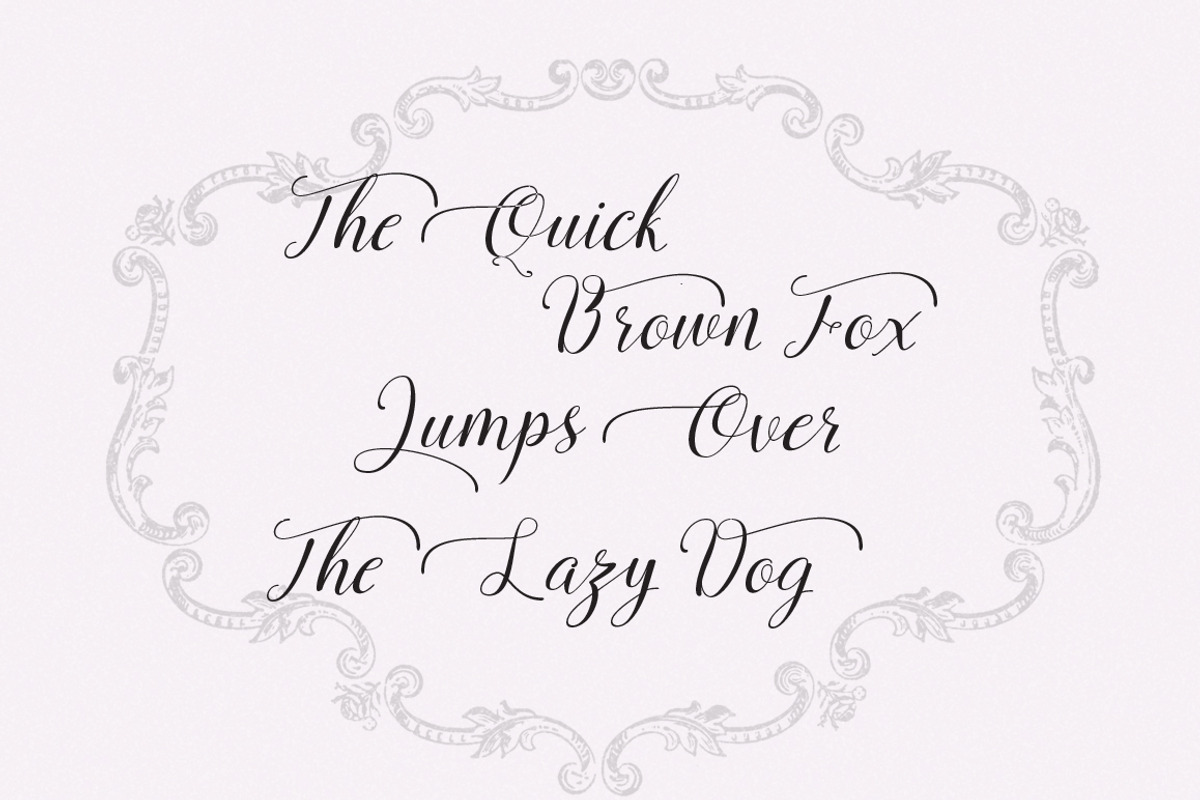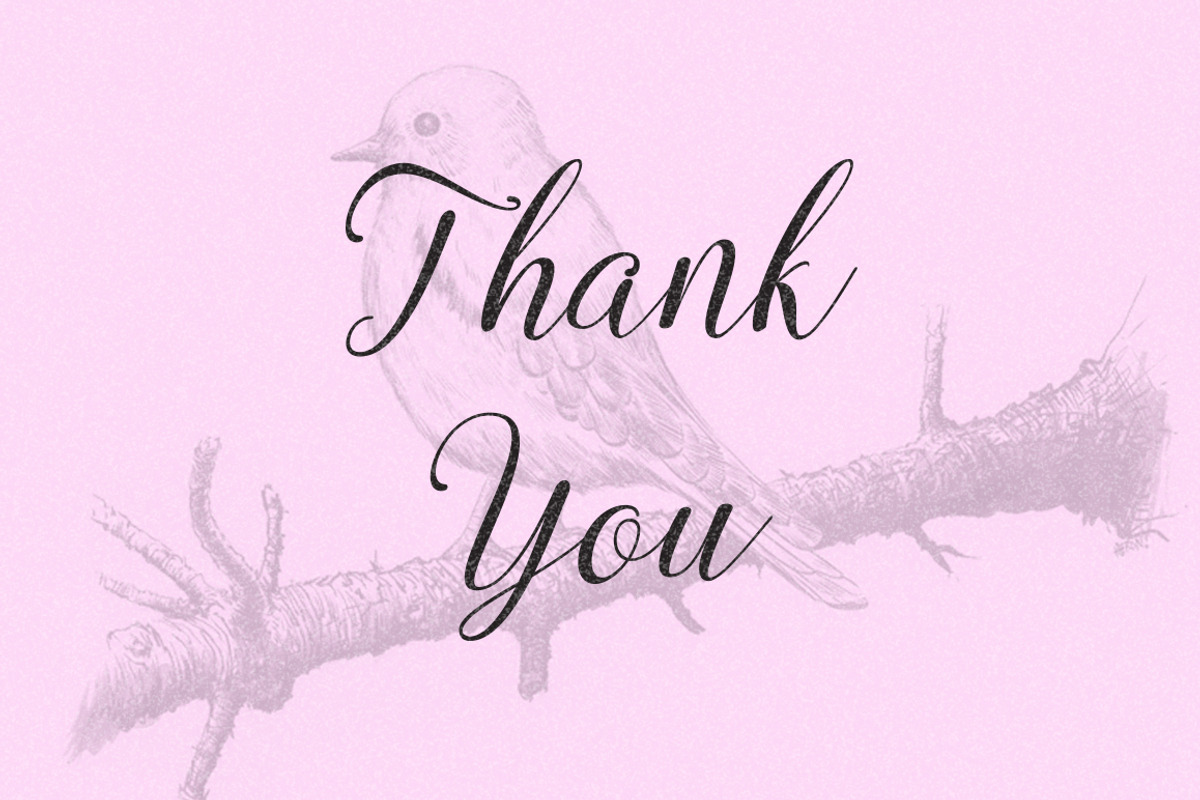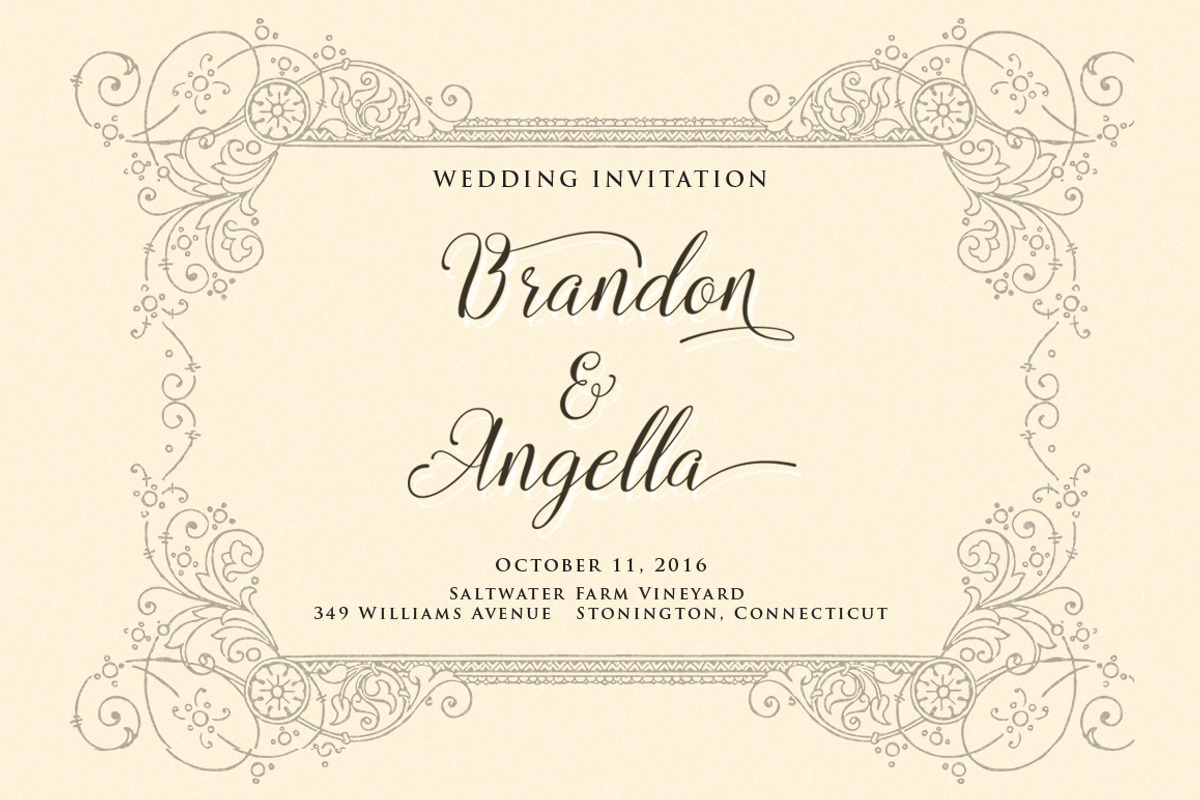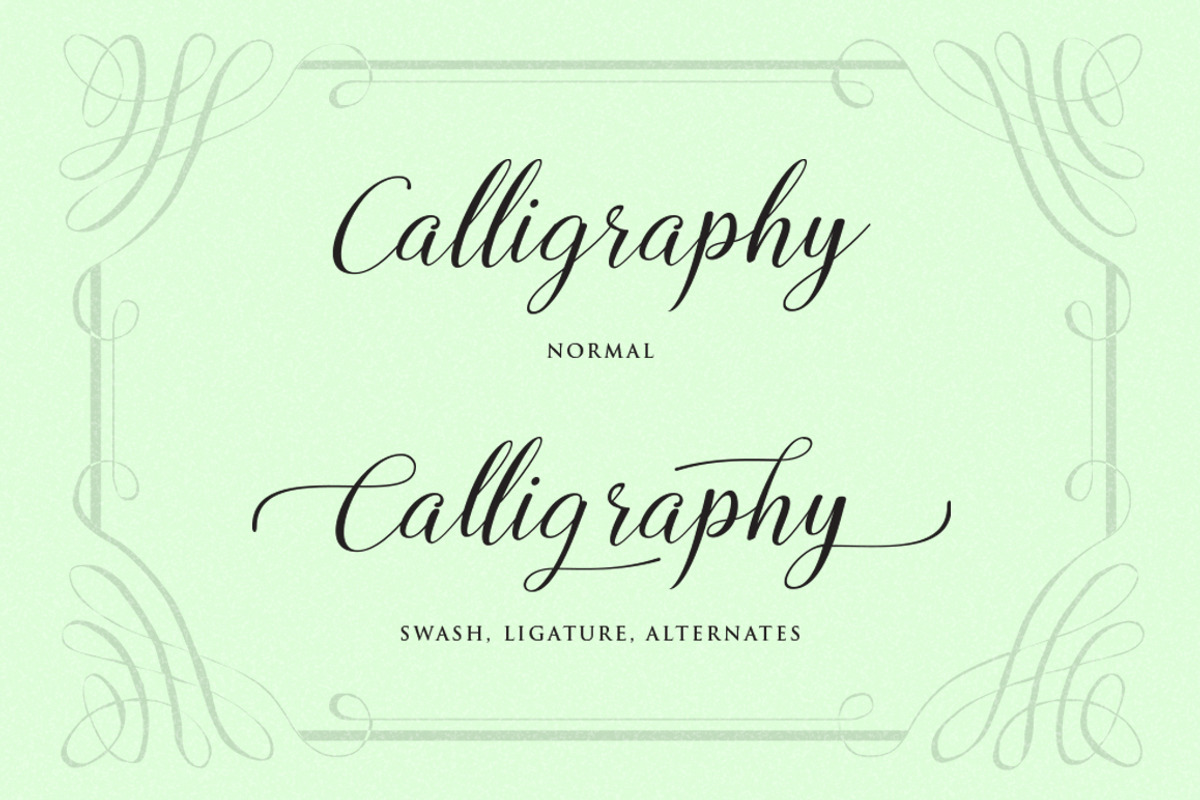
Octavina Script Calligraphy Typeface
Octavina Script Calligraphy Typeface by ianmikraz is a font selected for branding, posters, packaging, typography.
- Octavina Script features 394 glyphs and 216 alternate character contain with opentype features.
- Mix and match the alternate characters to add an attractive message to your design.
Why Octavina Script Calligraphy Typeface is worth a look
Octavina Script Calligraphy Typeface by ianmikraz fits naturally into Branding, posters, packaging, typography.